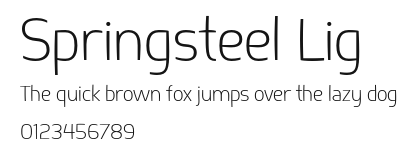
• Font Name: Springsteel Lig
• Font ID: JanSchmoeger/Paragraph: Springsteel Light: 2009
• Designer: Jan Schmoeger
• Manufacturer: Jan Schmoeger/Paragraph
About Springsteel Lig.otf
Springsteel Lig.otf is a modern, elegant sans-serif font designed for ultimate readability and visual harmony. Perfect for branding, headlines, web design, and print materials.